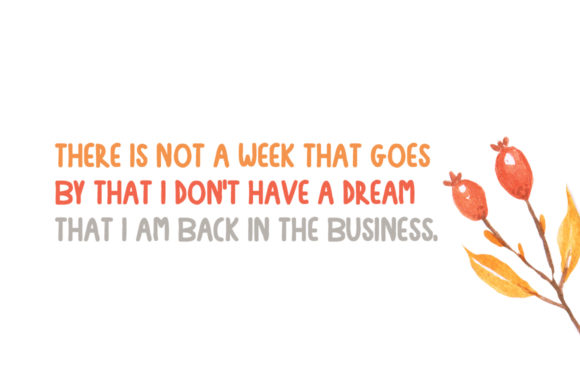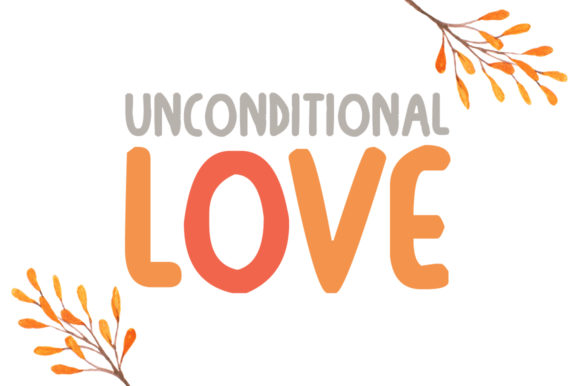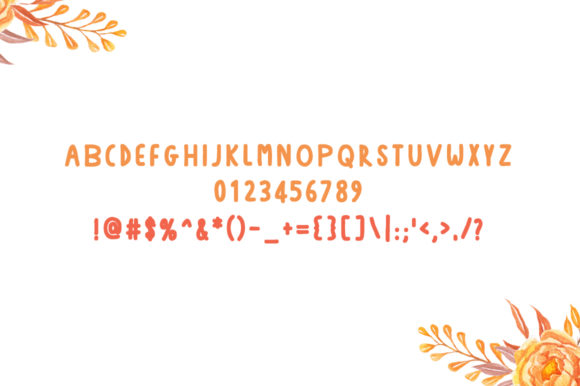
Discover the Whimsical Charm of Belabour Font
Are you a designer or crafter looking for a unique and eye-catching font to add a touch of personality to your projects? Look no further than Belabour Font, a beautiful and cute display font with a whimsical twist. In this article, we’ll dive into the world of Belabour Font and explore its features, uses, and inspiration.
What is Belabour Font?
Belabour Font is a display font that boasts a distinctive and charming aesthetic. Its unique design combines elegant lines with a playful, whimsical feel, making it perfect for projects that require a touch of personality. Whether you’re working on a logo, branding materials, or craft projects, Belabour Font is sure to inspire.
Key Features of Belabour Font
- Unique and Whimsical Design: Belabour Font features a one-of-a-kind design that sets it apart from other fonts. Its elegant lines and playful twists make it perfect for adding a touch of personality to your projects.
- Cute and Playful Aesthetic: This font is perfect for designers and crafters who want to add a touch of cuteness and playfulness to their work.
- Display Font: Belabour Font is a display font, making it perfect for headlines, titles, and other prominent text elements.
- Easy to Read: Despite its unique design, Belabour Font is easy to read, making it perfect for use in a variety of projects.
Uses of Belabour Font
Belabour Font is a versatile font that can be used in a variety of projects, including:
- Logo Design: Add a touch of personality to your logo with Belabour Font.
- Branding Materials: Use Belabour Font to create eye-catching branding materials, such as business cards, brochures, and flyers.
- Craft Projects: Belabour Font is perfect for crafters who want to add a touch of personality to their projects, such as handmade cards, scrapbooking, and DIY crafts.
- Digital Projects: Use Belabour Font in digital projects, such as social media graphics, blog posts, and website headers.
Belabour Font is sure to inspire designers and crafters with its unique charm. Here are a few ideas to get you started:
- Create a Whimsical Logo: Use Belabour Font to create a logo that’s both elegant and playful.
- Add a Touch of Personality to Your Branding: Use Belabour Font to add a touch of personality to your branding materials.
- Make a Statement with Your Craft Projects: Use Belabour Font to make a statement with your craft projects, such as handmade cards and scrapbooking.
Tips for Using Belabour Font
Here are a few tips for using Belabour Font:
- Use it Sparingly: Belabour Font is a display font, so use it sparingly to make a maximum impact.
- Pair it with Other Fonts: Pair Belabour Font with other fonts to create a unique and eye-catching combination.
- Experiment with Colors: Experiment with different colors to find the perfect combination for your project.
Belabour Font is a beautiful and cute display font with a whimsical twist. Its unique design and playful aesthetic make it perfect for designers and crafters who want to add a touch of personality to their projects. With its versatility and ease of use, Belabour Font is sure to inspire and become a staple in your font collection.